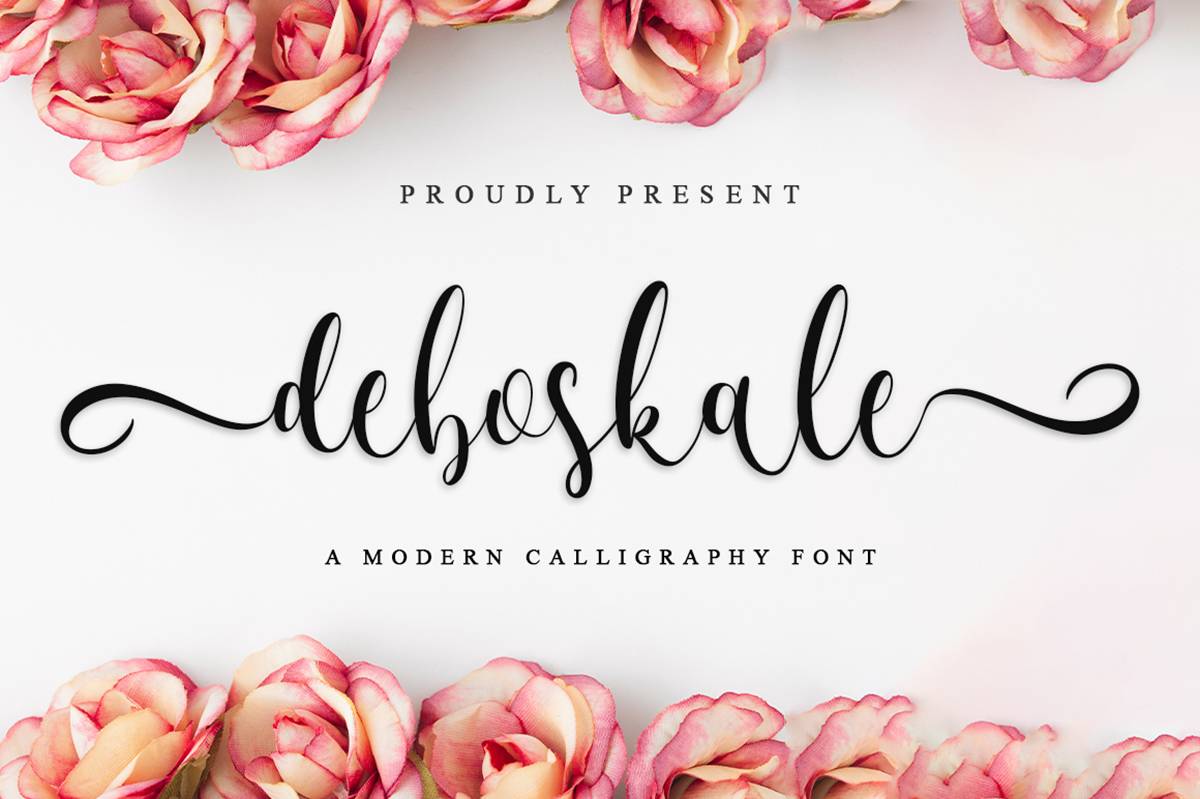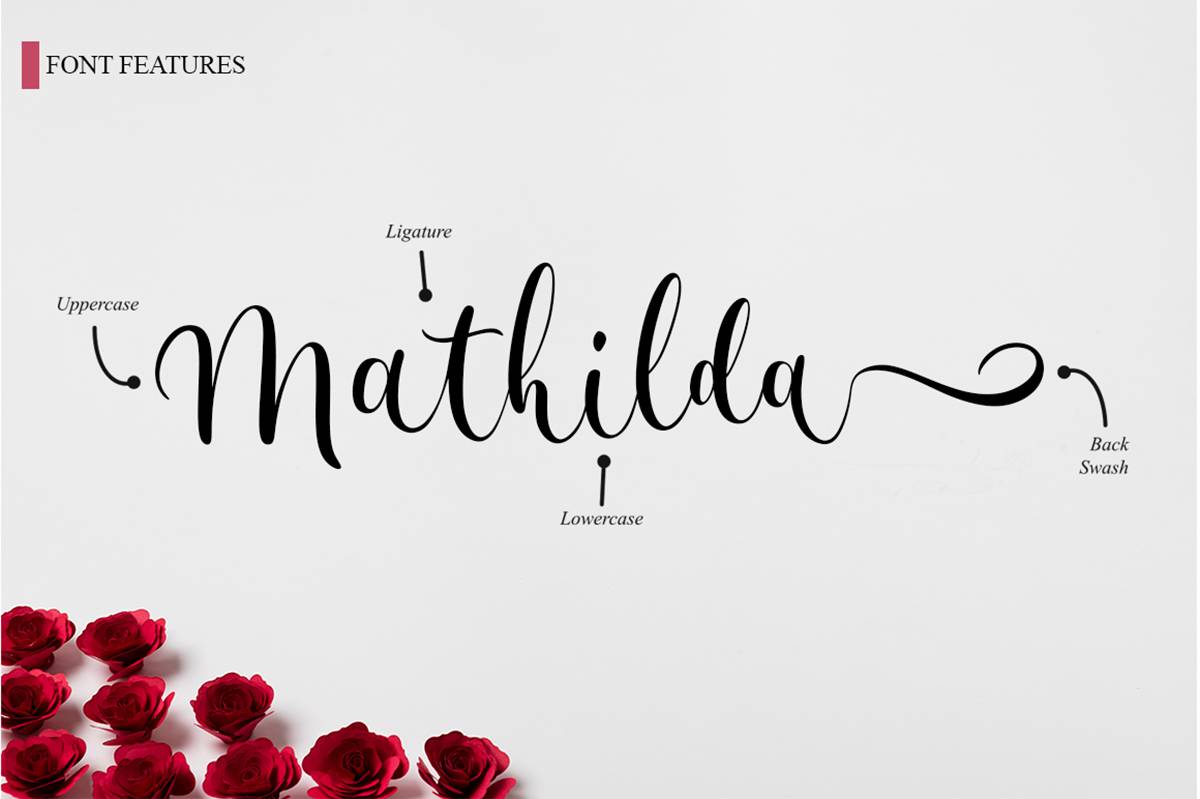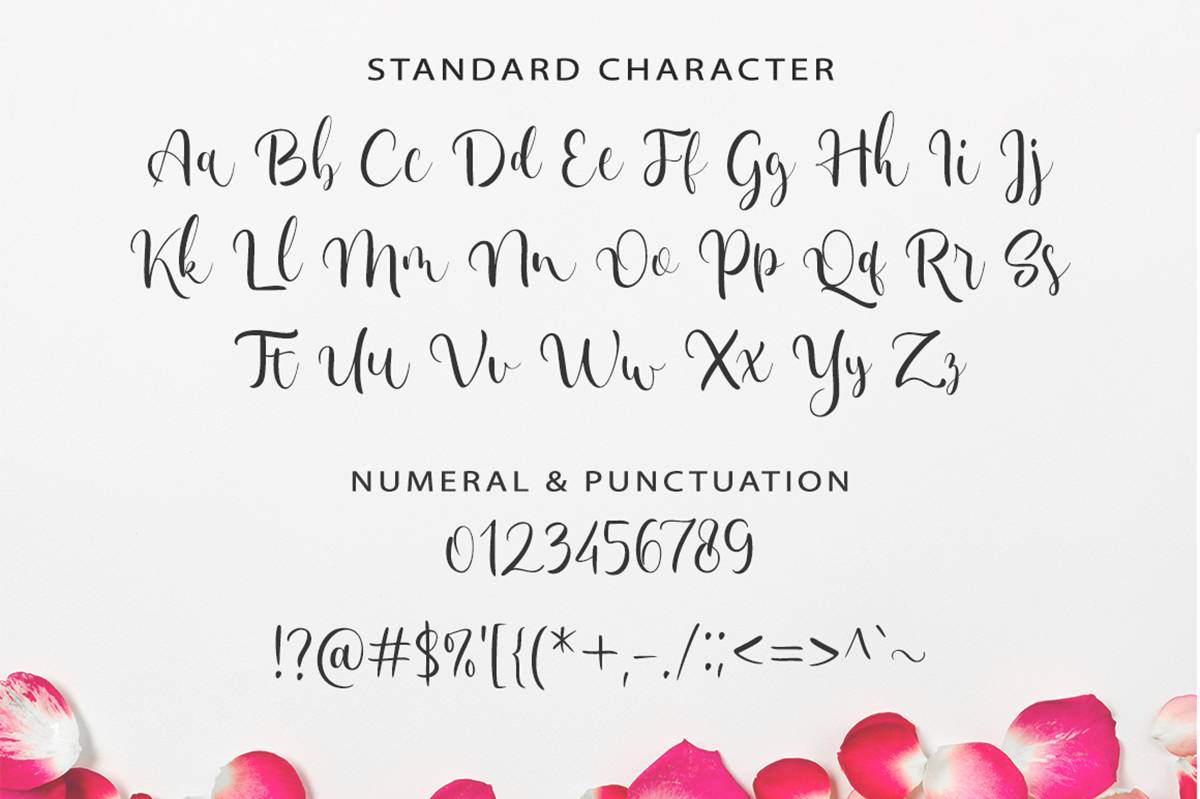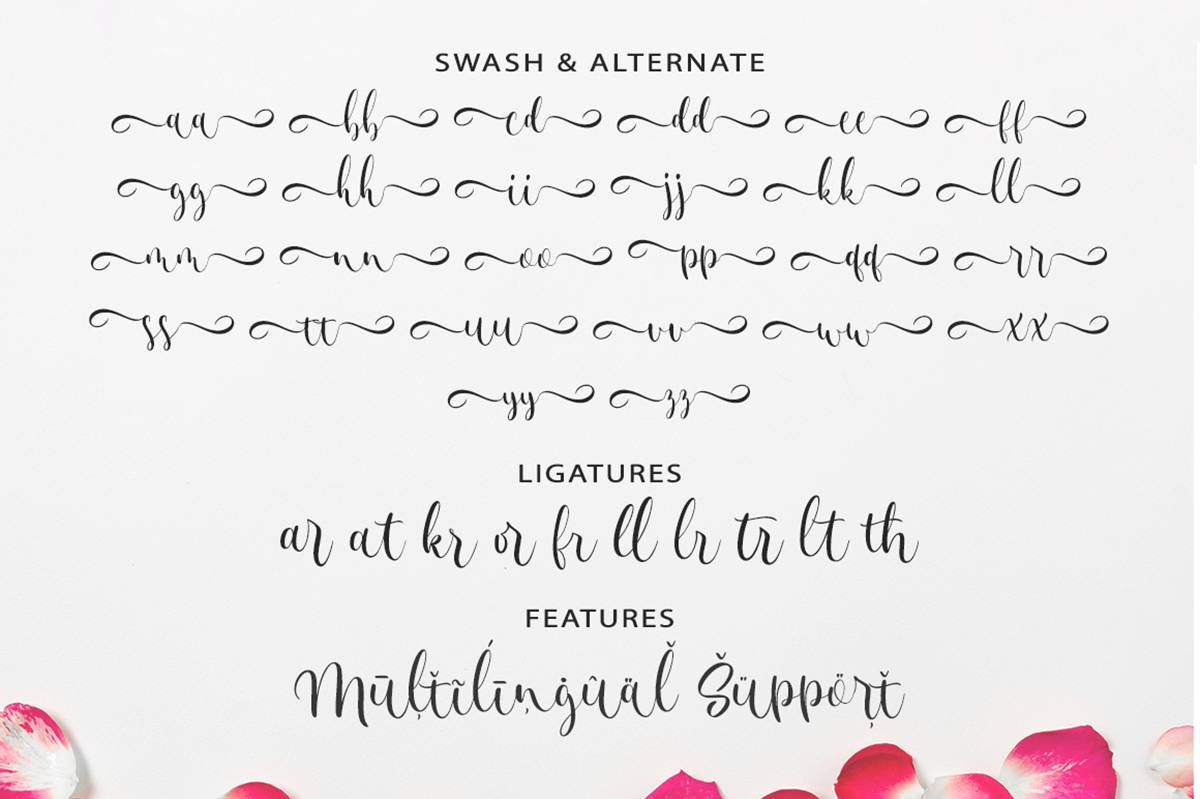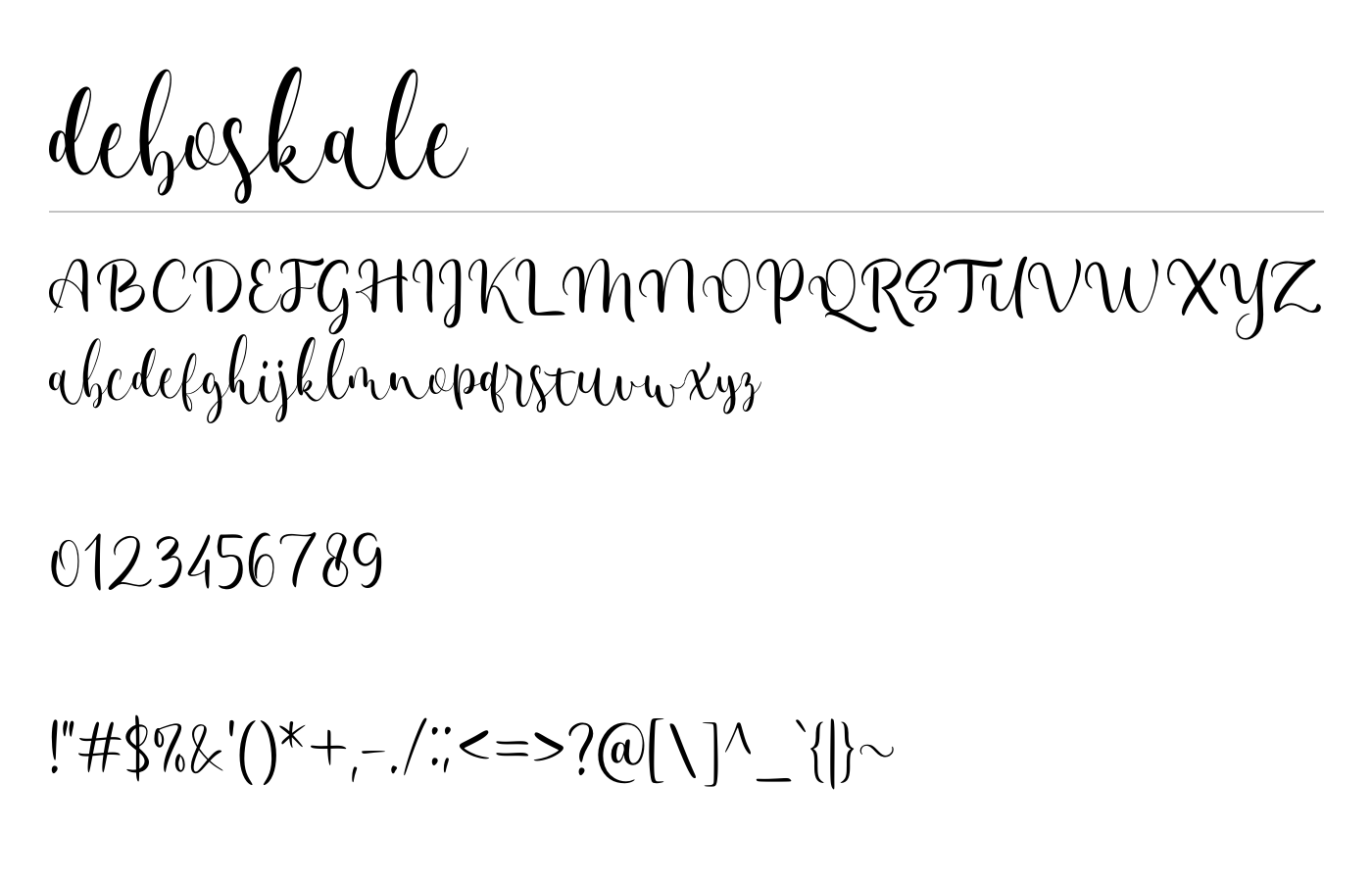
Deboskale is a graceful handwritten script font with elegant, flowing strokes that offer a natural and personal touch. Its slender, slightly varied stroke widths and charming loops create a warm and inviting feel, making it perfect for wedding invitations, branding, and feminine or creative projects that seek a delicate yet approachable style. This font works well in headlines and logos where a sophisticated, artistic look is desired.
Deboskale Font
About Deboskale Font
| Font family | Deboskale Font |